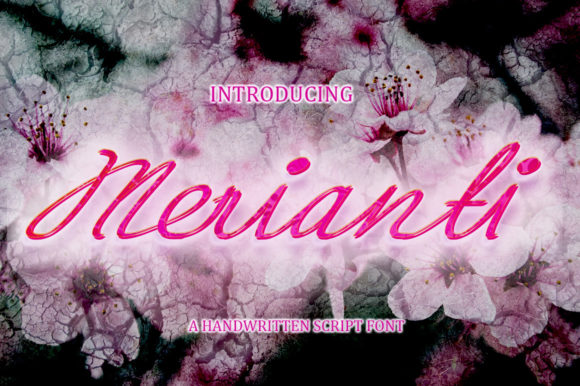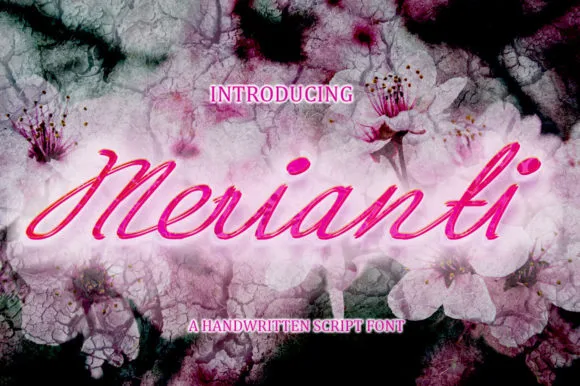
Merianti Script Font
About Merianti Script Font
Merianti Script is a beautiful and light handwritten font with a unique feel and a stunning impact. It will add a luxury spark to any design project that you wish to create!